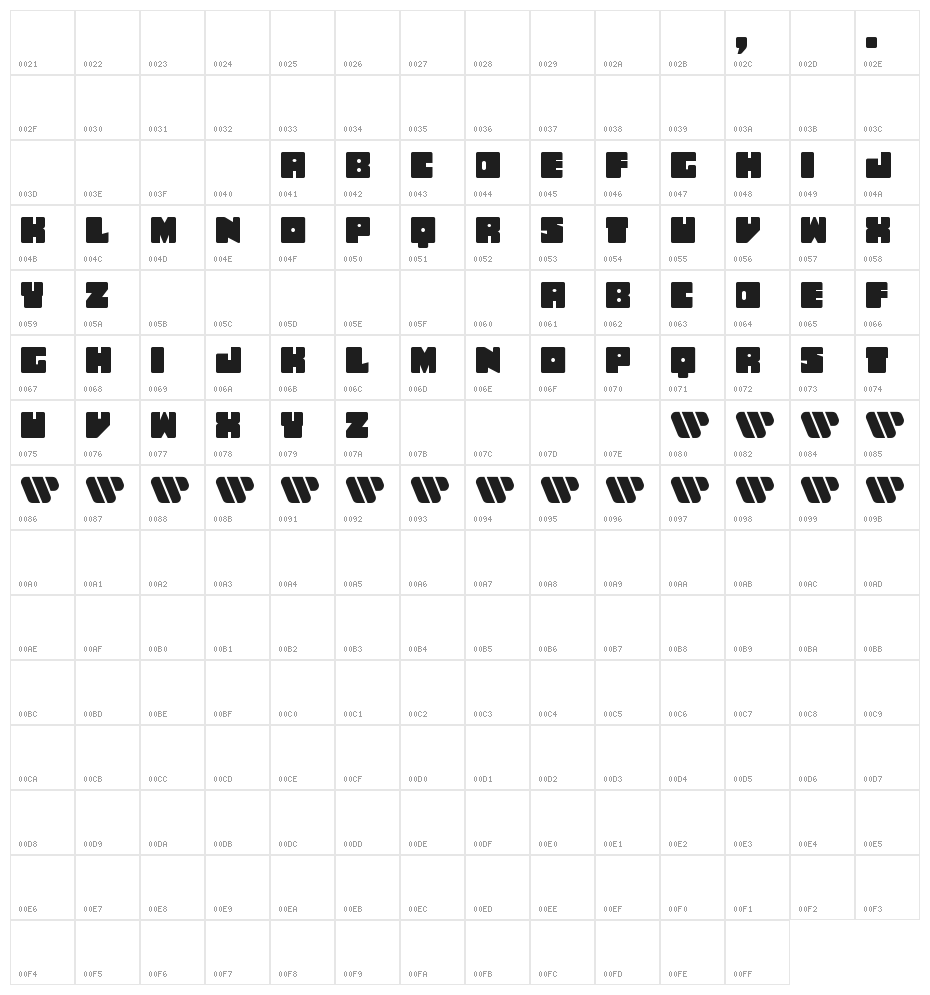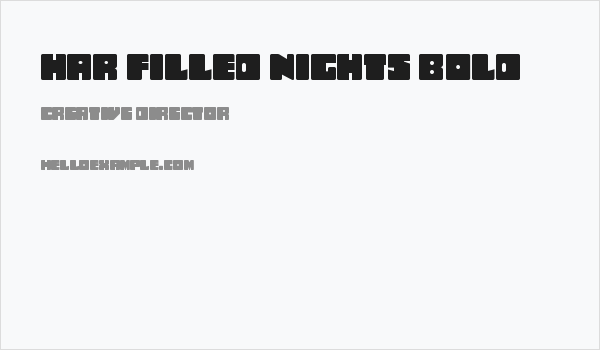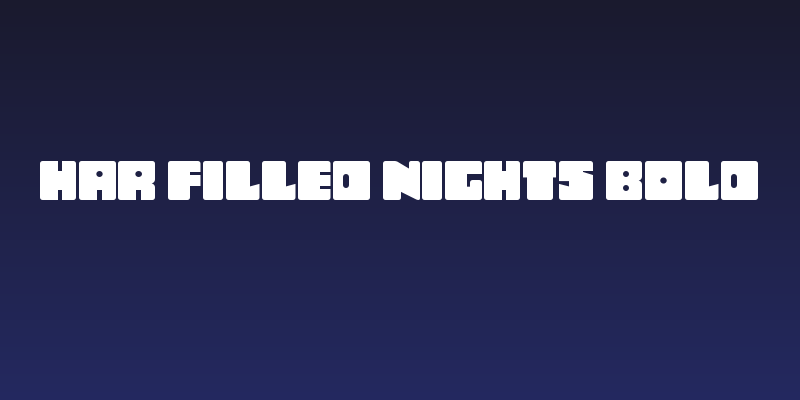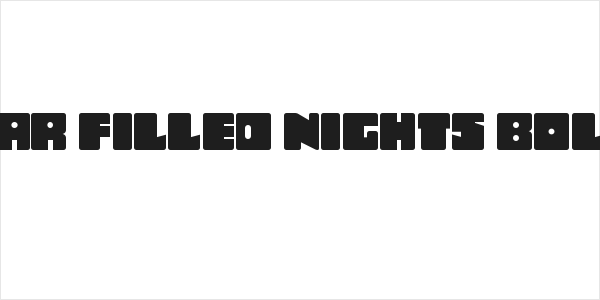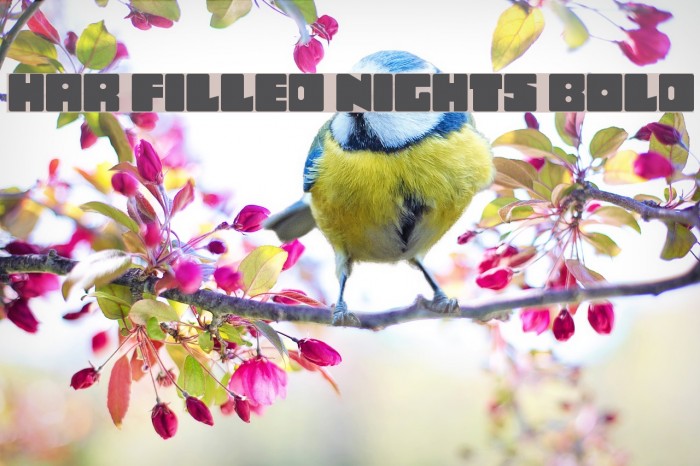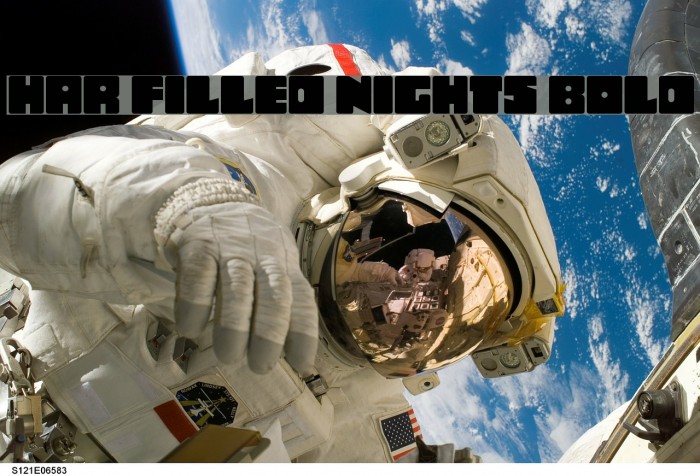
Har Filled Nights Bold Font
Har Filled Nights Bold Description
This font features a bold and blocky design with a strong geometric influence. Each character is filled and solid, creating a heavy and impactful appearance. The letters are uniformly wide, with a consistent height that gives the font a monospaced feel, although it is not strictly monospaced. The style is reminiscent of retro or vintage arcade games, with a playful yet assertive presence. The font lacks any curves, opting instead for sharp angles and straight lines, which enhances its boldness. The spacing between characters is tight, contributing to its dense and compact look. This font is ideal for making a strong visual statement.
| Overall Style | Vintage |
| Proposed Projects | Perfect for video game graphics, retro-themed posters, bold headlines, and logo designs. |